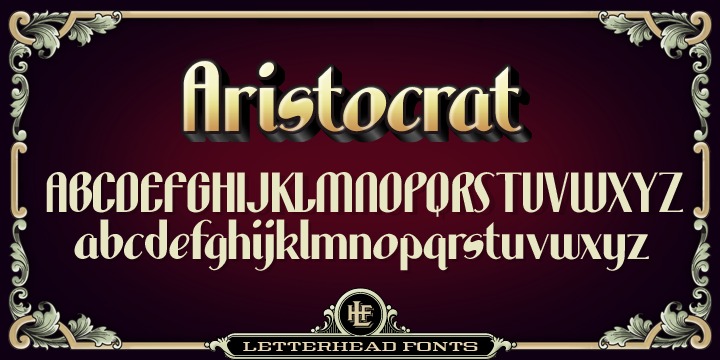
Inspired by a 1930’s advertisement for “Swallow” motorcycles. Terrific for art deco designs.
John Studden
Design date:
2002
Publisher:
Letterhead Fonts
LHF Aristocrat